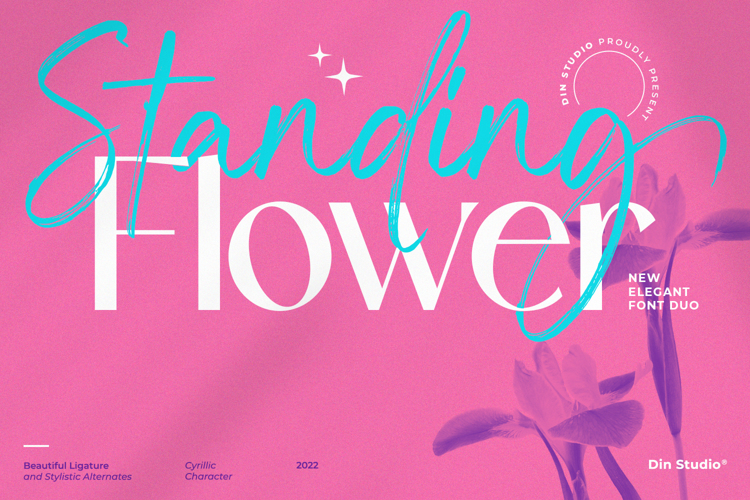
Standing Flower Font
Sans Serif Style
Script Style
Standing Flower, a must-have item for your designs, is a handmade script font combined with a soft sans serif font to meet your needs. This script font, as well as the sans serif font, expresses elegant, modern impressions and natural nuance together thanks to many unconnected letters, as if they were not written down in a cursive style, and add some unique curves to the letters.
Features include:
• Ligatures
• Stylistic Sets
• Multilingual Supports
• Numerals and Punctuations